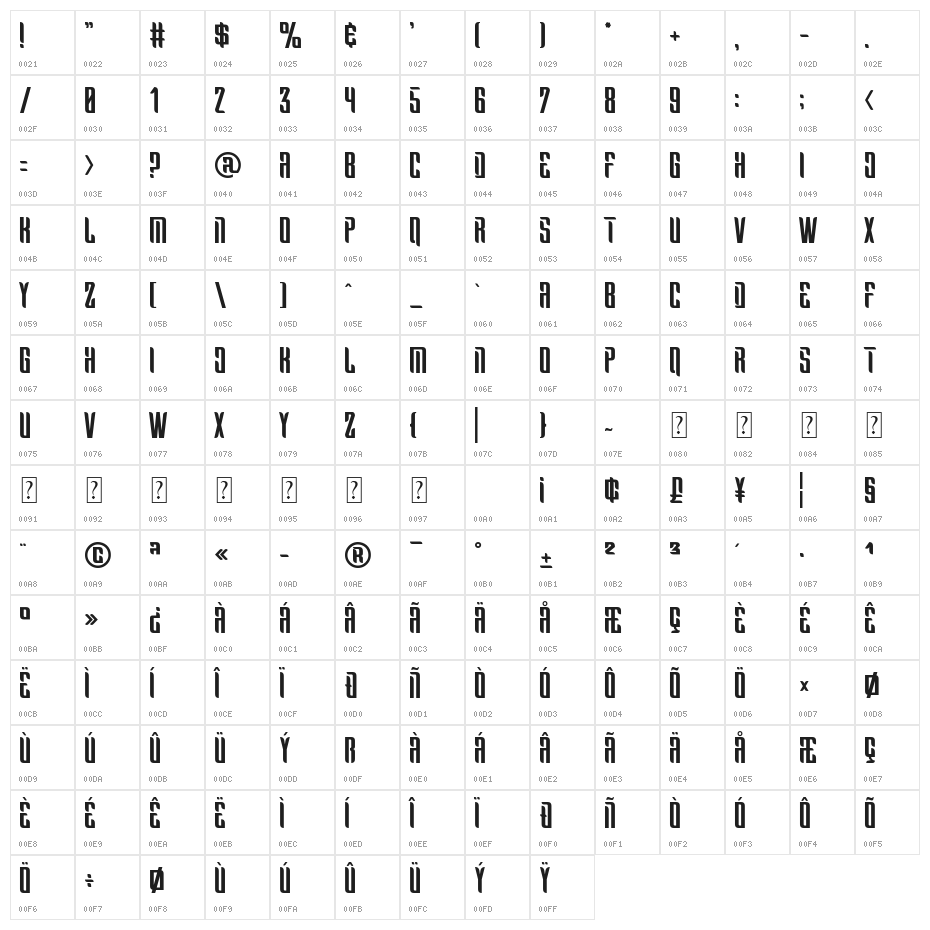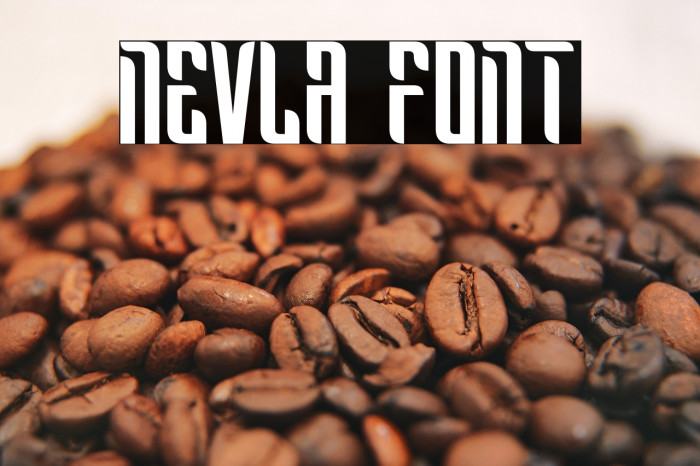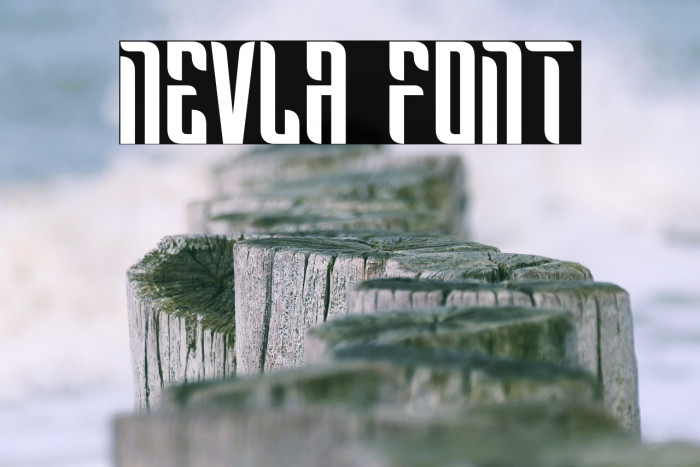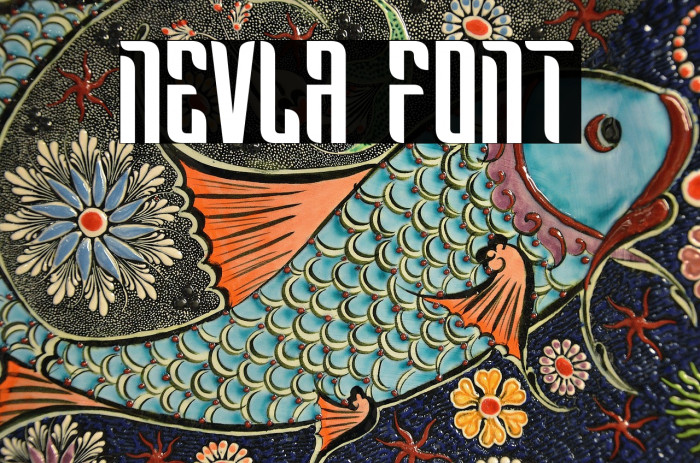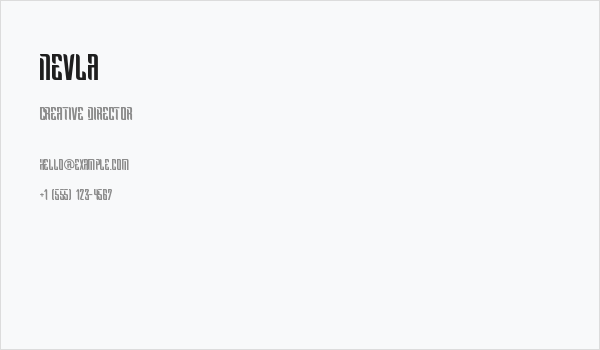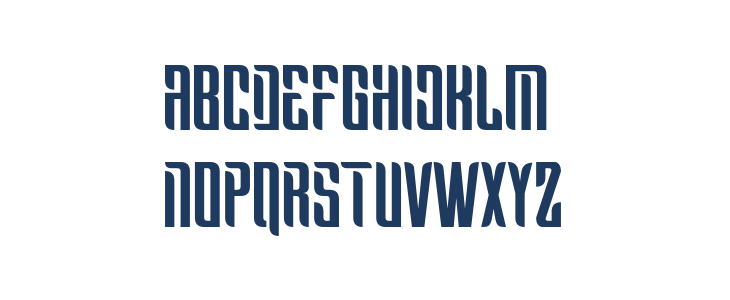
Nevla Font
Nevla Description
This font features a bold and modern design with a unique geometric style. The characters are constructed with thick vertical lines and sharp angles, giving it a futuristic and industrial appearance. The uppercase letters are particularly striking, with a uniform height and consistent width that create a cohesive look. The numbers and special characters maintain the same boldness and angularity, ensuring a harmonious overall design. This font is highly legible and makes a strong visual impact, suitable for various creative applications.
| Proposed Projects | Ideal for branding, posters, headlines, and any project requiring a strong, modern aesthetic. |